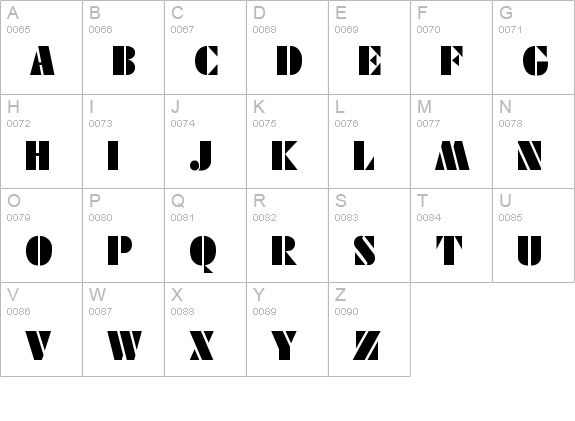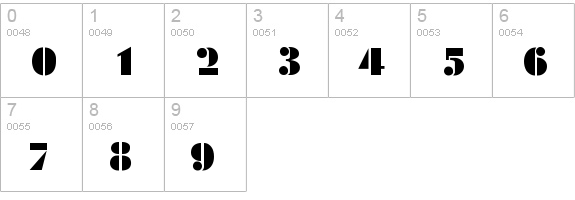
QTFuturePoster Regular Font Details
QTFuturePoster Regular is the standard, neutral variant in the QTFuturePoster typeface family \xE2\x80\x94 well suited to general body text, paragraphs, and standard typographic work.
QTFuturePoster Regular font is a captivating and versatile typeface that is sure to make a bold statement in any design project. With its sleek and futuristic appearance, this font exudes a sense of innovation and modernity. The clean lines and sharp edges of each letter create a visually striking effect, making it perfect for headlines, posters, logos, and other eye-catching designs. What sets QTFuturePoster Regular font apart is not only its striking aesthetics but also its accessibility. It is available for free download at FontsMarket.com, making it easily accessible to designers and creatives of all levels. Whether you are a seasoned professional or just starting out, this font provides you with the creative freedom to bring your vision to life without any financial constraints. The versatility of QTFuturePoster Regular font is evident in its ability to adapt to various design styles and themes. Its bold yet legible characters make it a great choice for both digital and print media, ensuring that your message is conveyed clearly and effectively to your audience. Whether you are designing a futuristic sci-fi movie poster or a contemporary brand identity, this font will undoubtedly add a touch of sophistication and flair to your work. With its timeless design and ease of use, QTFuturePoster Regular font is an essential addition to any designer's toolkit. Its availability as a free download at FontsMarket.com allows you to explore its potential and experiment with different layouts and compositions without any limitations. So why wait? Download QTFuturePoster Regular font today and unleash your creativity with this remarkable typeface.